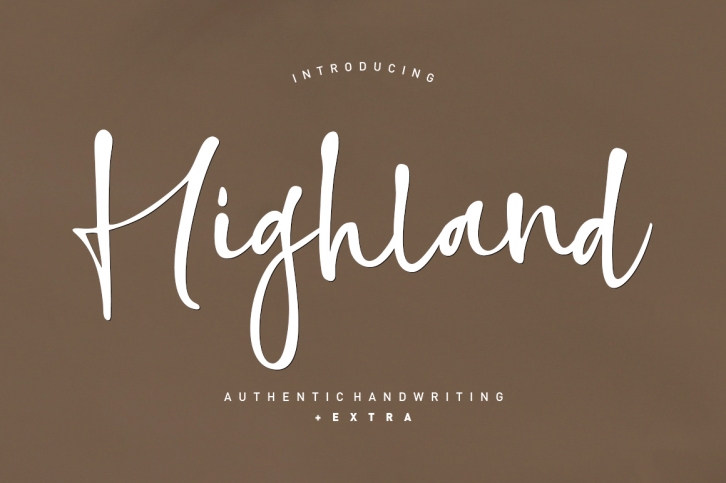
Highland script is a beautiful font that was designed by Areatype Studio. It's a great choice for designers and creatives who need such a font. It was released on January 29, 2020 and the file size is 4.22 MB. Highland script may give a more youthful, expressive and casual look to your project. It is a very beautiful, refined, elegant, and high-quality font.